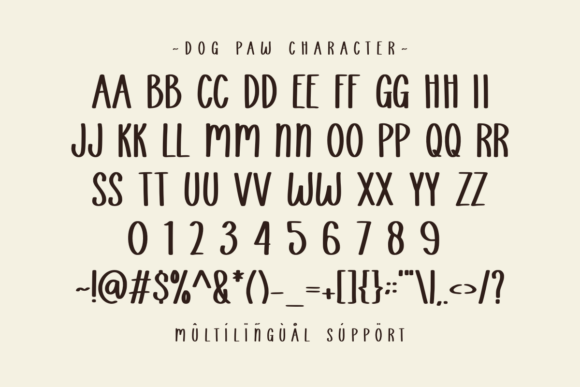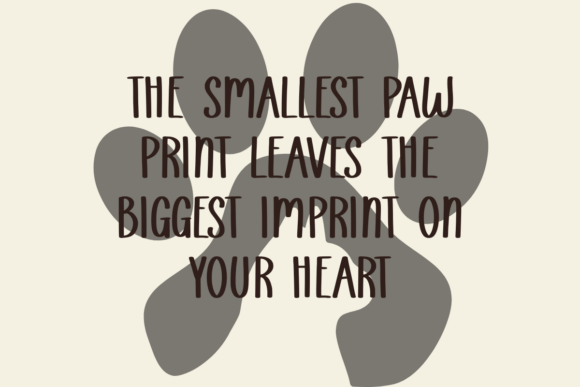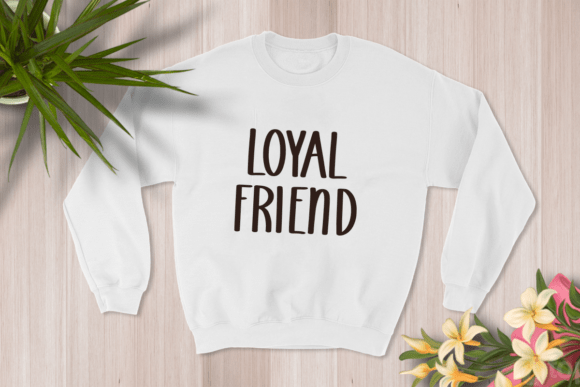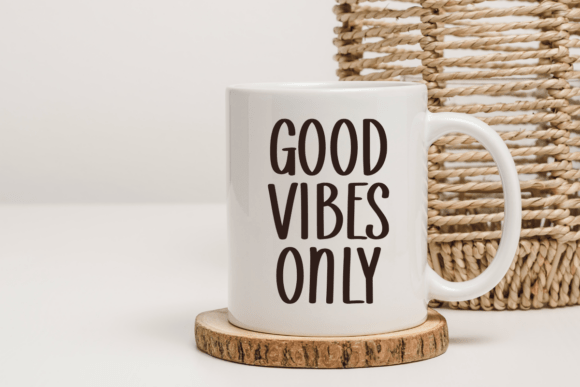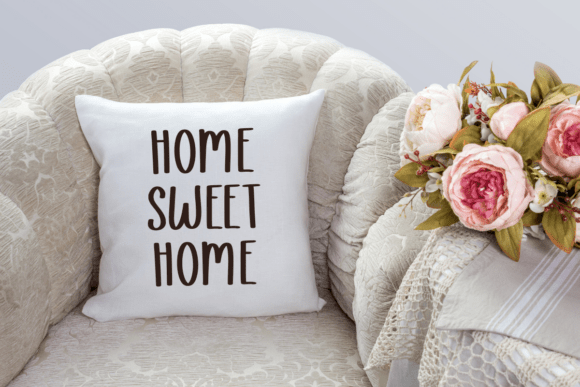
Discover the Delightful Dogpaw Font: Elevate Your Designs with a Touch of Warmth and Simplicity
In the world of typography, few fonts manage to strike a balance between simplicity, elegance, and warmth. Dogpaw, a delightful minimalist sans serif font, is one such gem that has captured the hearts of designers and crafters alike. With its clean lines, subtly rounded edges, and inviting aesthetic, Dogpaw is the perfect addition to any creative project that requires a touch of casual sophistication.
The Characteristics of Dogpaw Font
Dogpaw’s design is centered around its warm and friendly charm. This font exudes a sense of approachability, making it an excellent choice for projects that aim to connect with their audience on a personal level. Its clean lines and minimalist approach ensure that Dogpaw remains highly legible, even at smaller sizes, while its subtly rounded edges add a hint of softness and warmth.
One of the standout features of Dogpaw is its exceptional readability. Whether you’re designing for digital media or print, this font ensures that your message is conveyed clearly and effectively. Its straightforward yet endearing style makes it versatile enough to be used across various applications, from children’s books and pet-related branding to cozy home decor and heartwarming greeting cards.
Dogpaw’s inviting aesthetic makes it an ideal choice for a wide range of projects. Here are a few ideas to get you started:
- Children’s Books: Dogpaw’s playful and approachable nature makes it perfect for storybooks, early readers, and educational materials.
- Pet-Related Branding: The font’s warm and friendly charm is a natural fit for pet-related businesses, such as pet stores, veterinary clinics, and animal shelters.
- Cozy Home Decor: Dogpaw’s minimalist yet inviting style makes it suitable for home decor projects, such as signage, labels, and packaging.
- Greeting Cards: Add a touch of warmth and personality to your greeting cards with Dogpaw’s endearing and legible style.
Why Choose Dogpaw Font?
With so many fonts available, why choose Dogpaw? Here are a few compelling reasons:
- Unique Blend of Simplicity and Warmth: Dogpaw strikes the perfect balance between simplicity and warmth, making it a versatile choice for a wide range of projects.
- Exceptional Readability: Dogpaw’s clean lines and minimalist approach ensure that it remains highly legible, even at smaller sizes.
- Cross-Platform Compatibility: Dogpaw is suitable for use in both digital media and print, making it a great choice for designers who work across multiple platforms.
Tips for Using Dogpaw Font Effectively
To get the most out of Dogpaw, here are a few tips to keep in mind:
- Pair with Other Fonts: Dogpaw pairs well with other fonts that have a similar minimalist aesthetic. Experiment with different combinations to find the perfect match for your project.
- Use for Headings and Body Text: Dogpaw’s exceptional readability makes it suitable for use in both headings and body text.
- Experiment with Colors: Dogpaw’s clean lines and minimalist approach make it a great choice for use with a variety of colors and textures.
In conclusion, Dogpaw is a delightful minimalist sans serif font that is sure to elevate your designs with its warm and friendly charm. Its exceptional readability, versatility, and inviting aesthetic make it a great choice for a wide range of projects. Whether you’re a designer, crafter, or DIY enthusiast, Dogpaw is a font that is sure to inspire and delight.